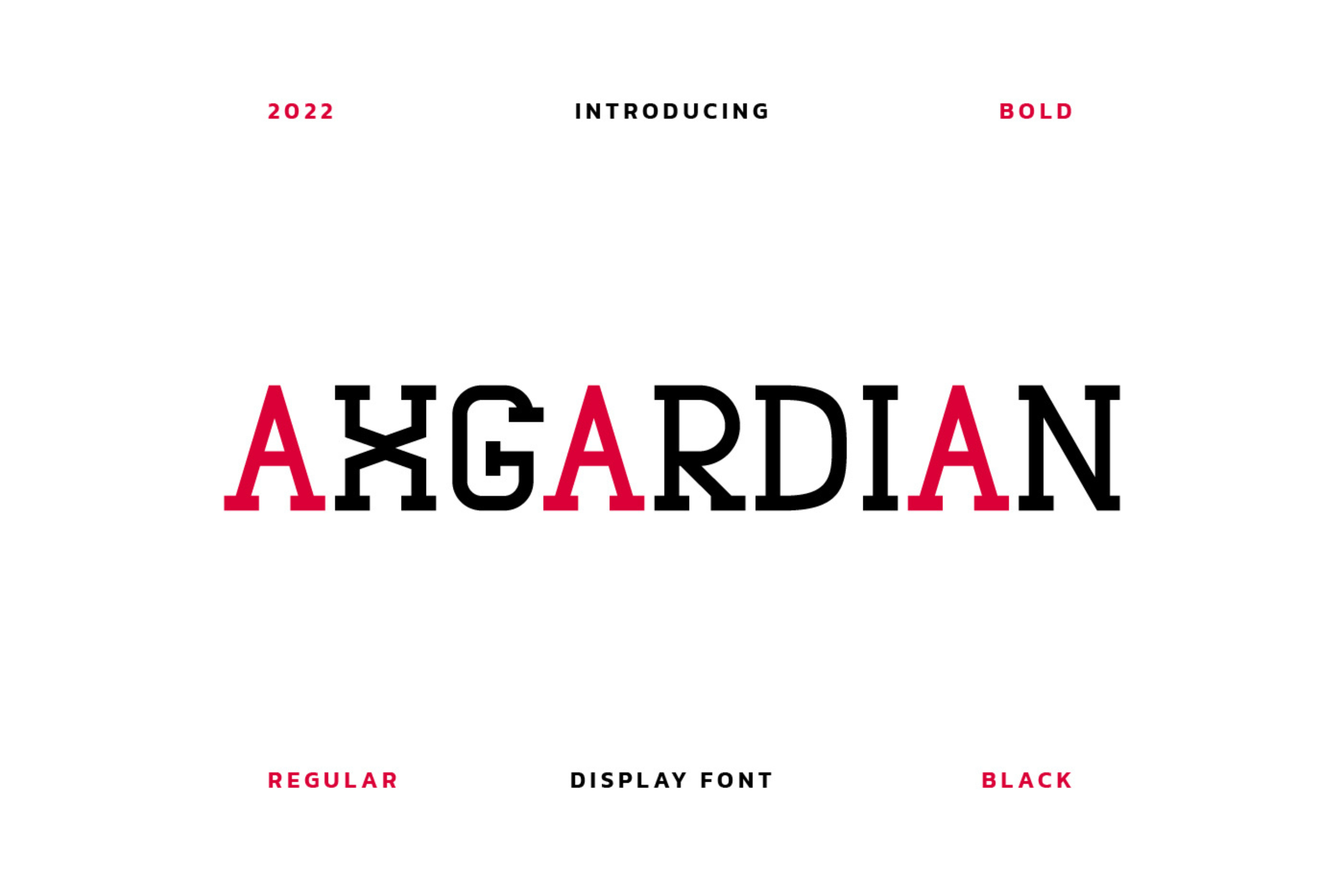
Axgardian Display Font
For this time I present a display font that was released in 2022, which has a simple but beautiful design. Looks neat in every letter, this font is suitable for your beautiful design. This font only has capital letters, this is because it was deliberately designed to look firm. But don't be discouraged if you want to use this font. Because you can use this font to make a invitation card, poster, social media post, lettering, book heading also any design.